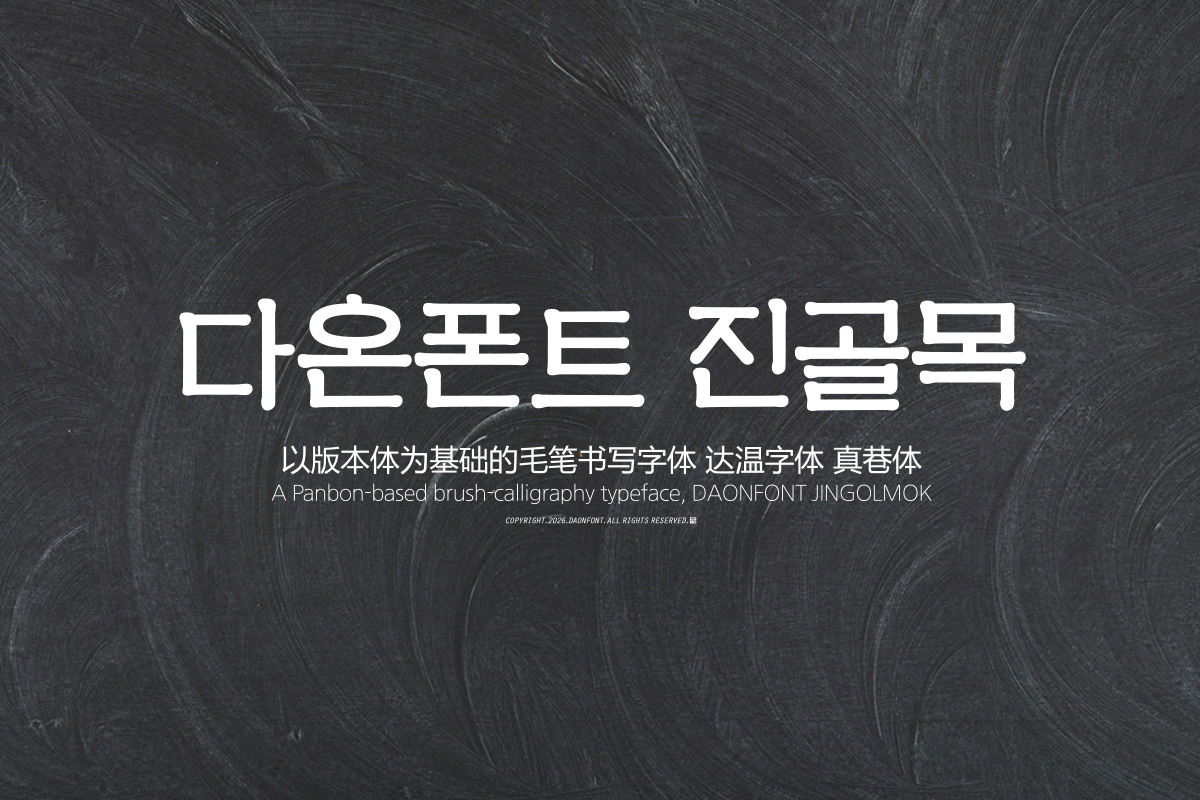
DAON JINGOLMOG(B)
DaonFont 'JINGOLMOG' is a Hangul typeface designed based on the Panbon style. It was created with the calm yet solid tone characteristic of the Panbon style. Not overly rigid, it naturally suits emotional sentences or warm messages.